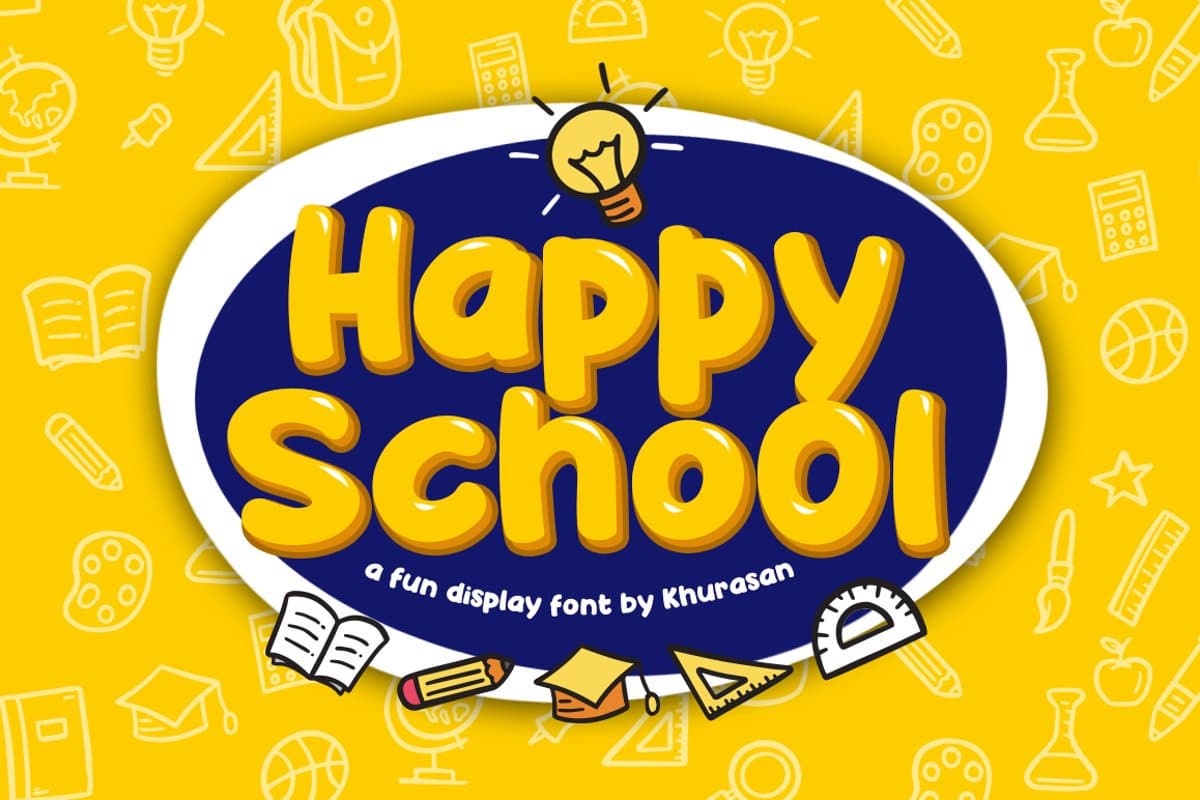
Introducing, Happy School font a bold display typeface with cheerful theme for your fun project. Happy School font suitable for logo, branding, greeting card, poster and any design that you create.